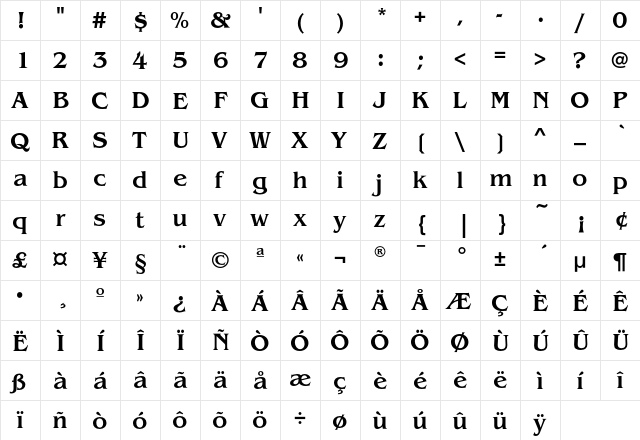
BenguiatEF-Medium Regular
Design Context for BenguiatEF-Medium Typeface
BenguiatEF-Medium takes a measured approach to typography — its balanced proportions and neutral character make it a reliable workhorse for both digital and print work.